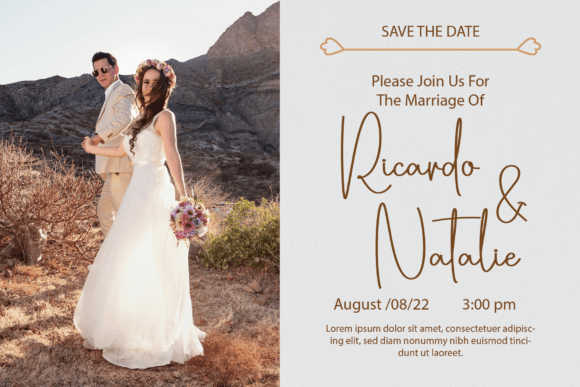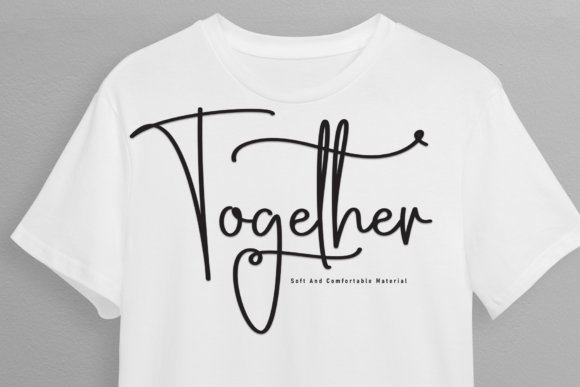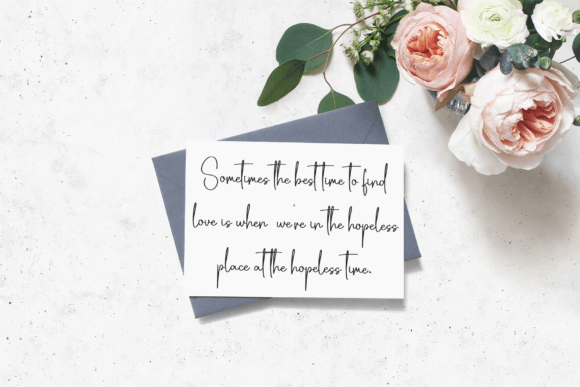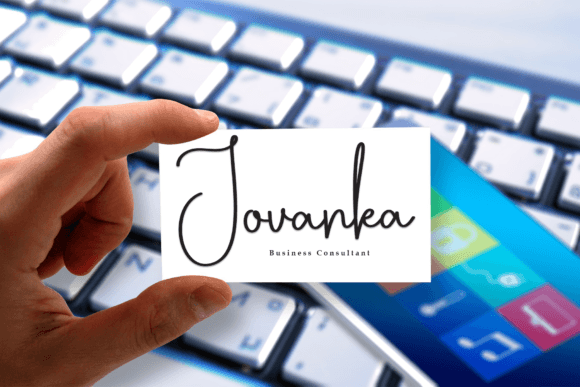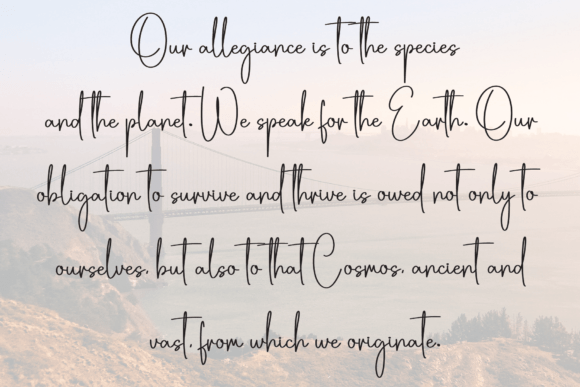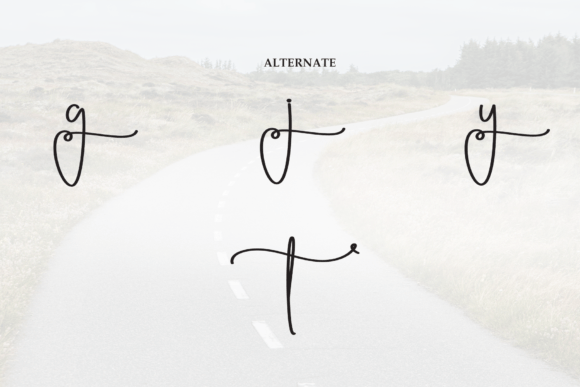
Introduction to Countryroads Font
Countryroads is a lovely and timeless handwritten font.
Key Features of Countryroads Font
Why Choose Countryroads Font?
Countryroads Font offers exceptional quality and versatility, making it a valuable addition to your design toolkit. Whether you’re creating for personal projects or commercial use, Countryroads Font delivers professional results.